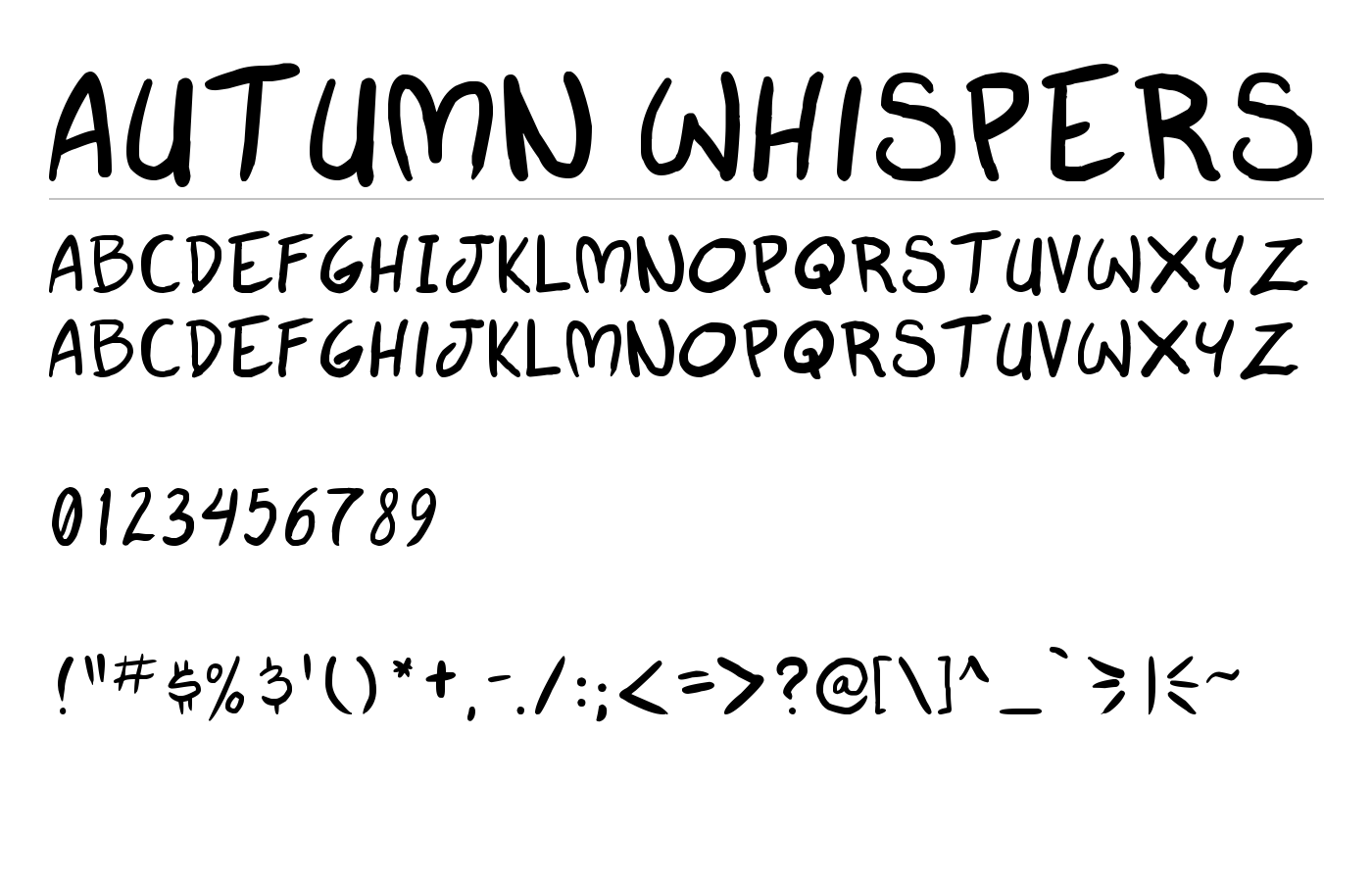
Autumn Whispers is a casual, handwritten sans serif font characterized by its playful, slightly irregular strokes that evoke a friendly and approachable mood. With its medium weight and slightly condensed letterforms, it captures a lively, informal style perfect for creative projects, children's books, or personalized branding. This font’s unique charm and natural flow make it ideal for logos, invitations, and any design seeking warmth and personality.
About autumn whispers Font